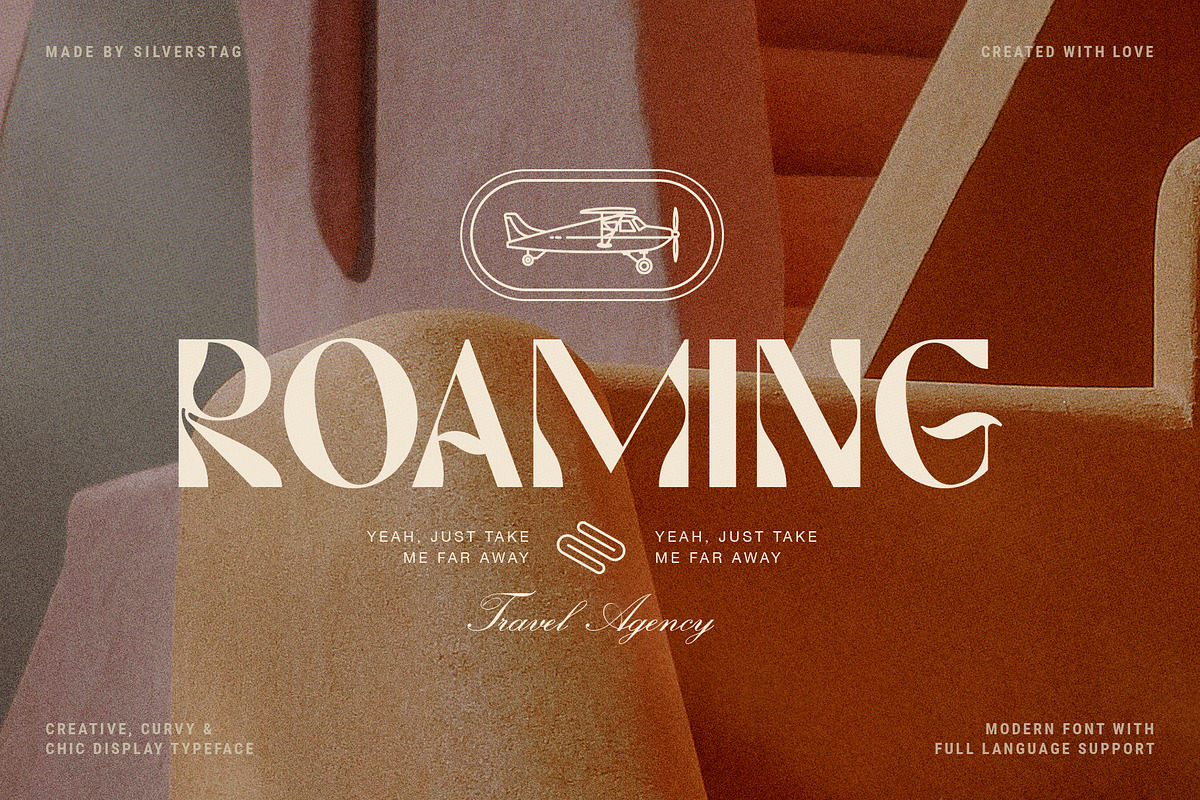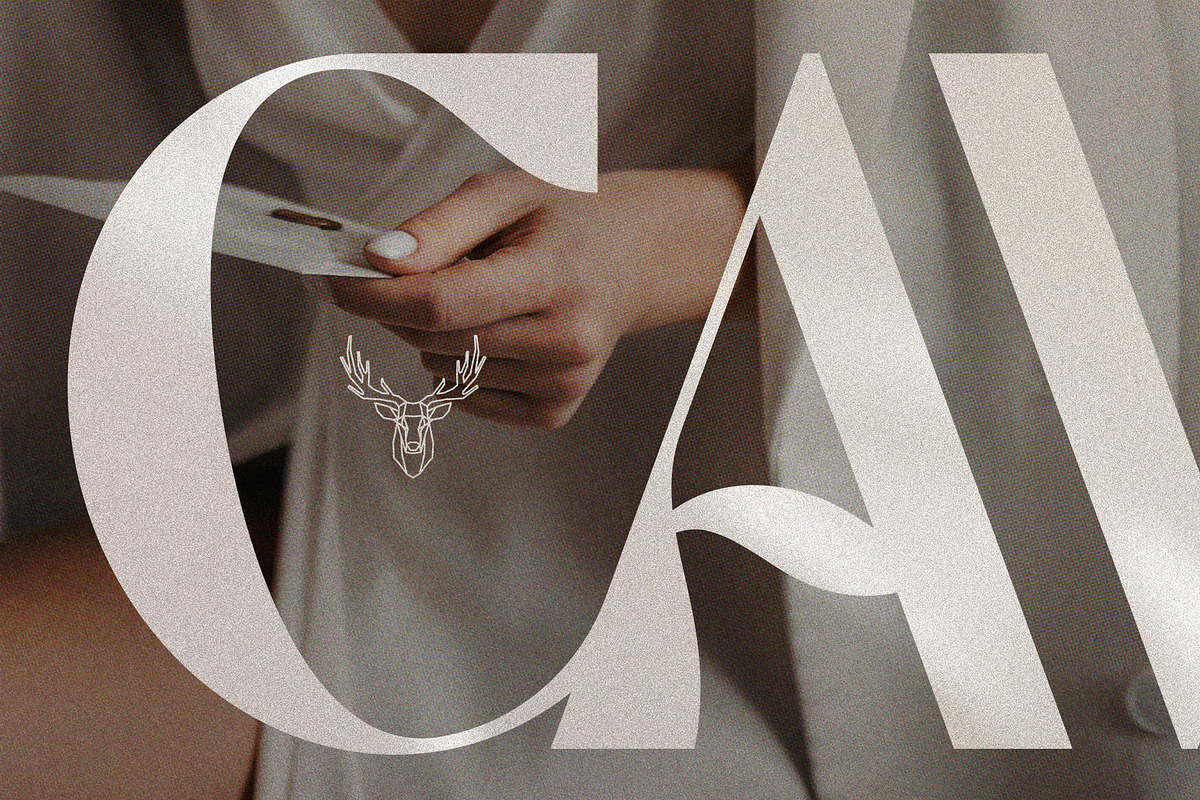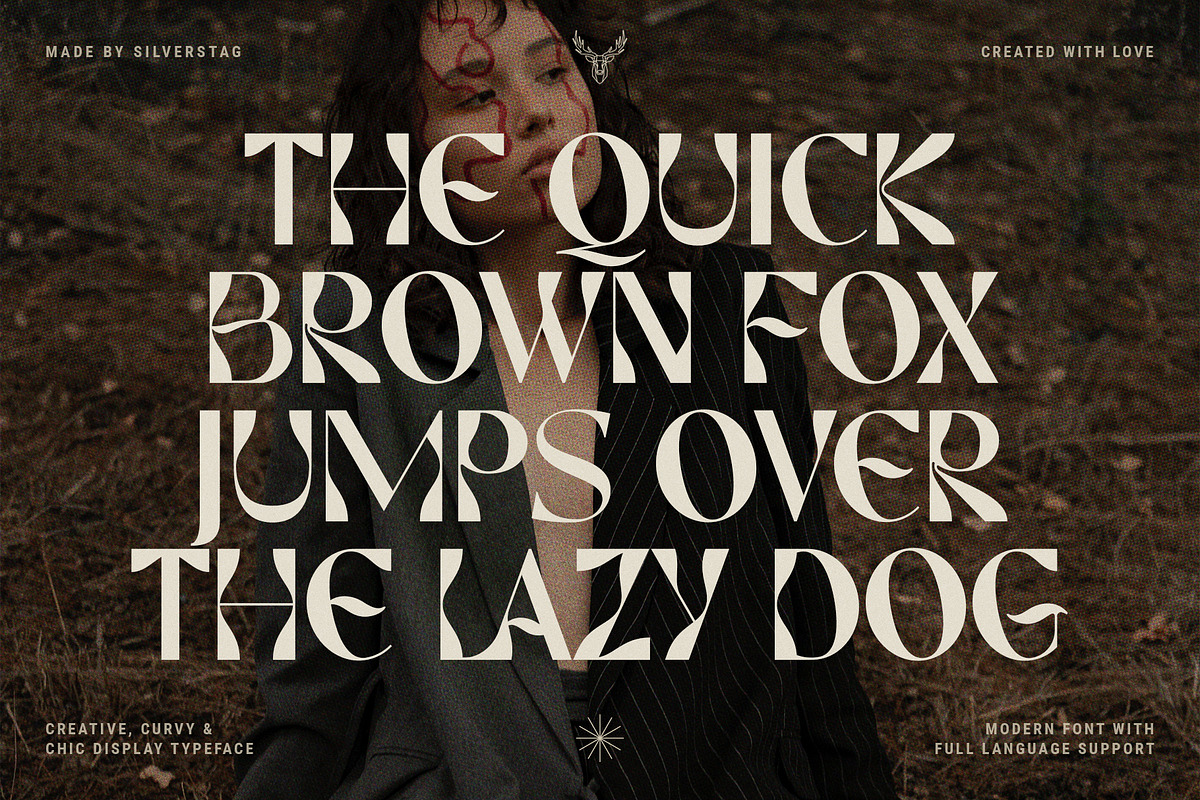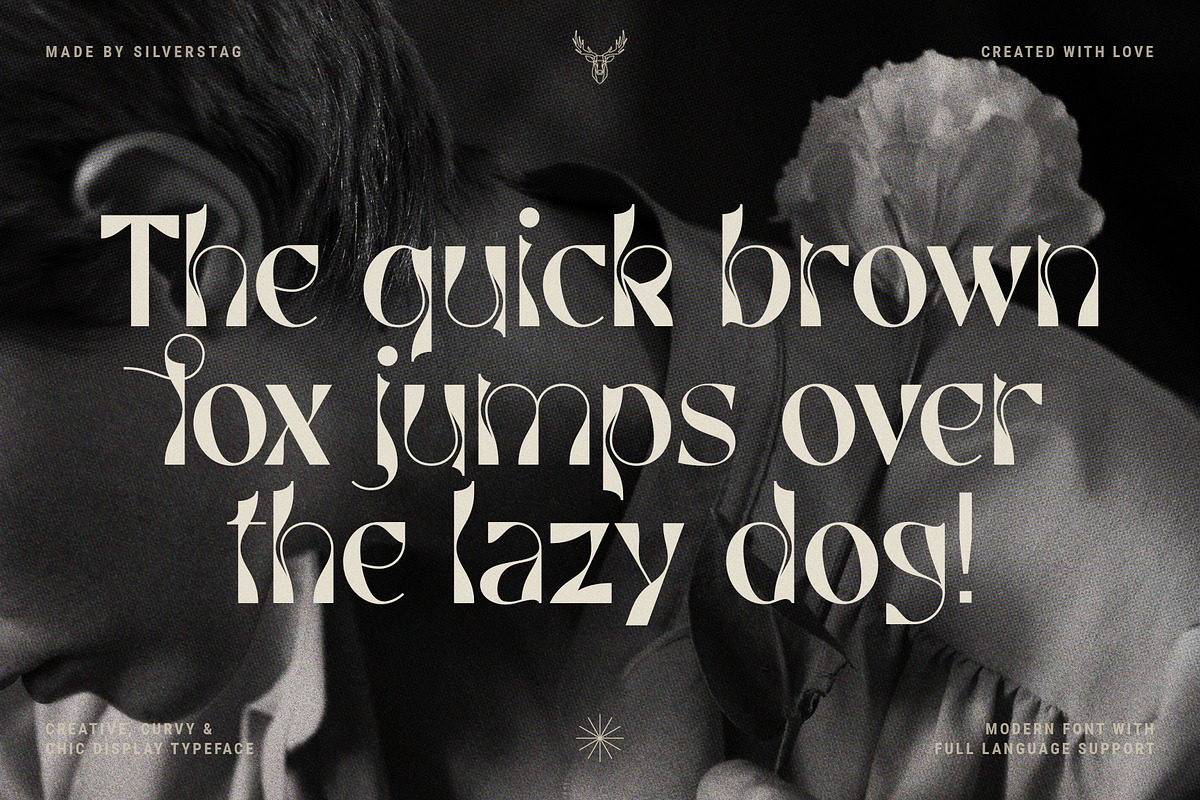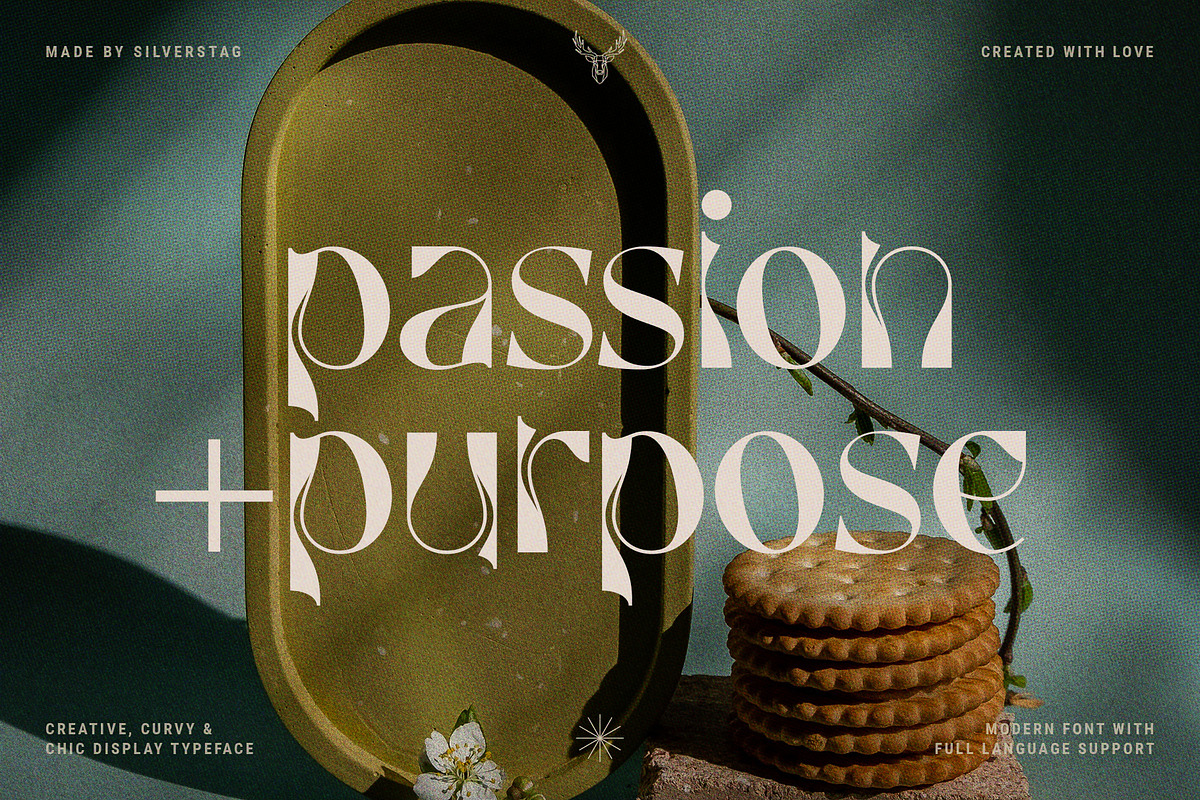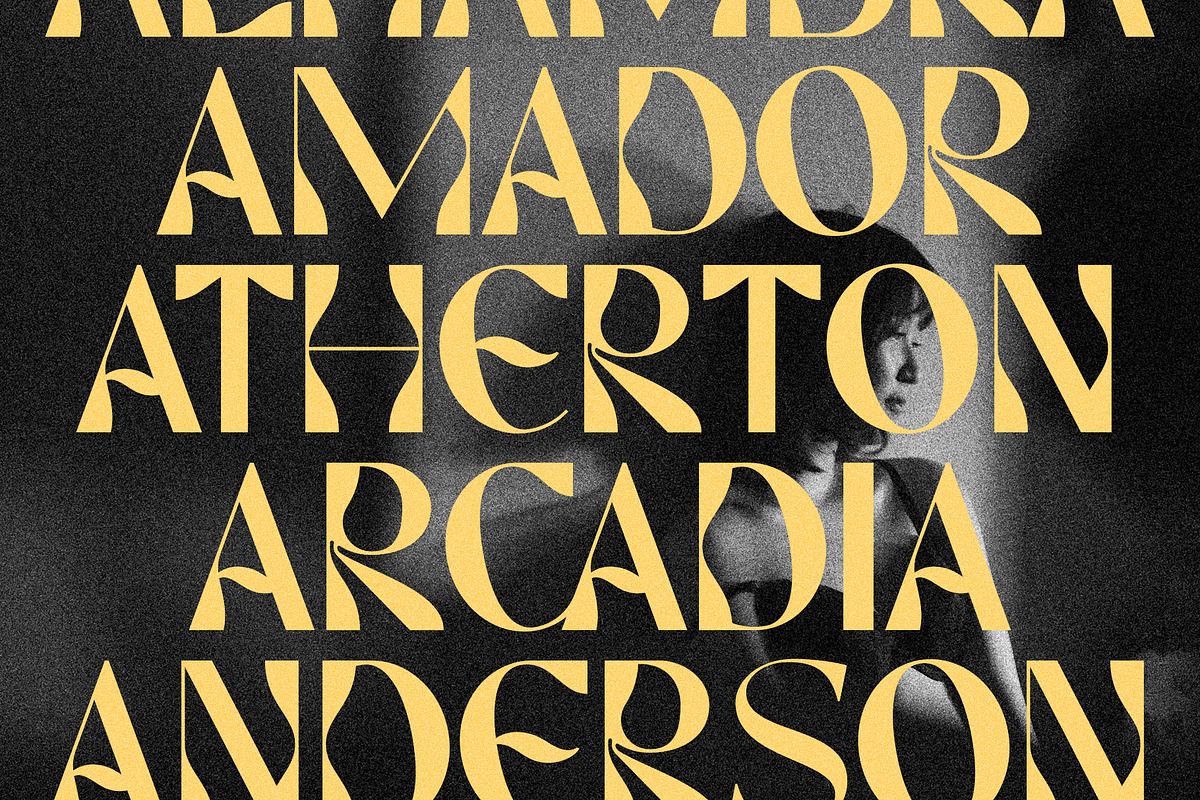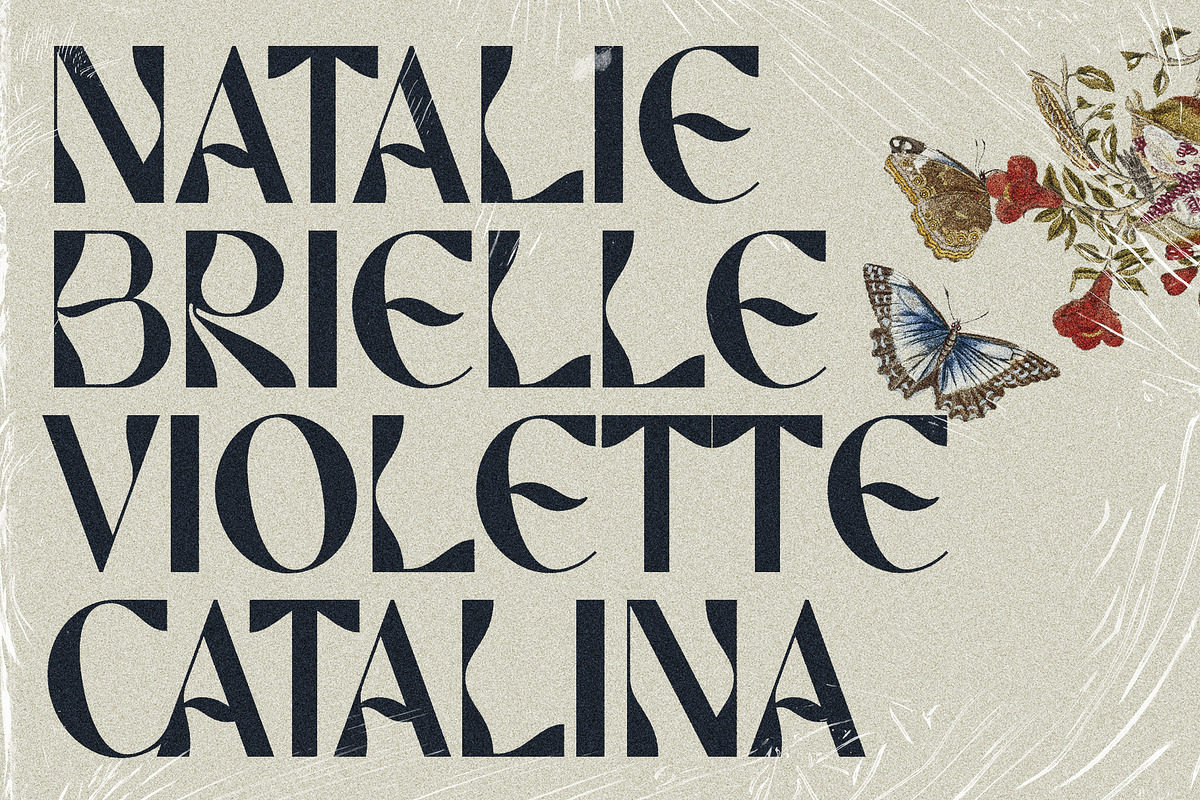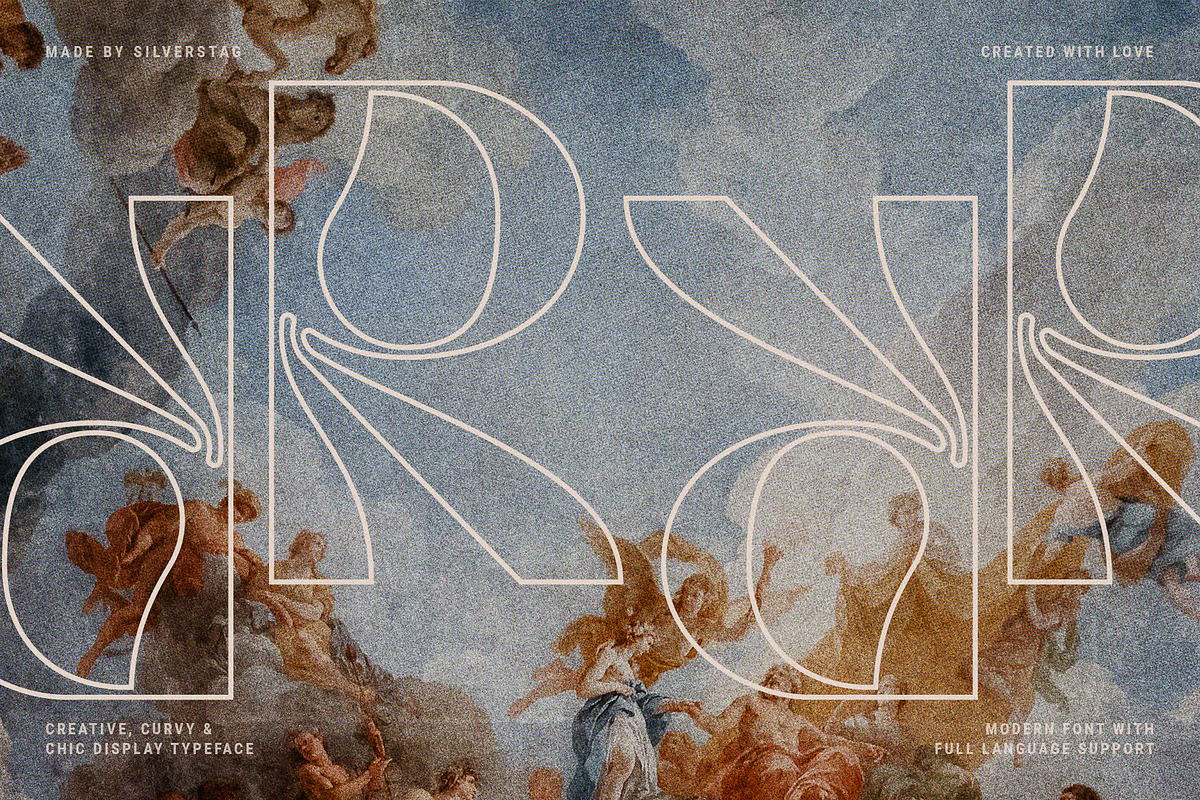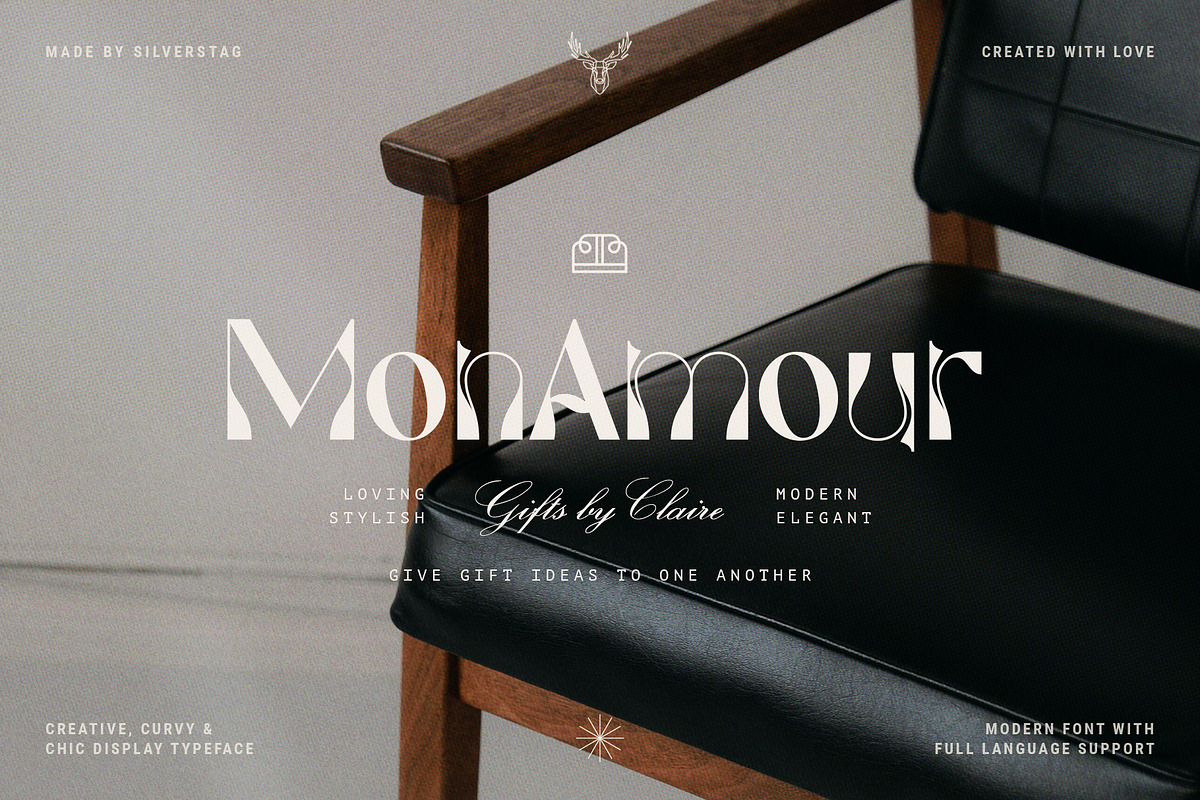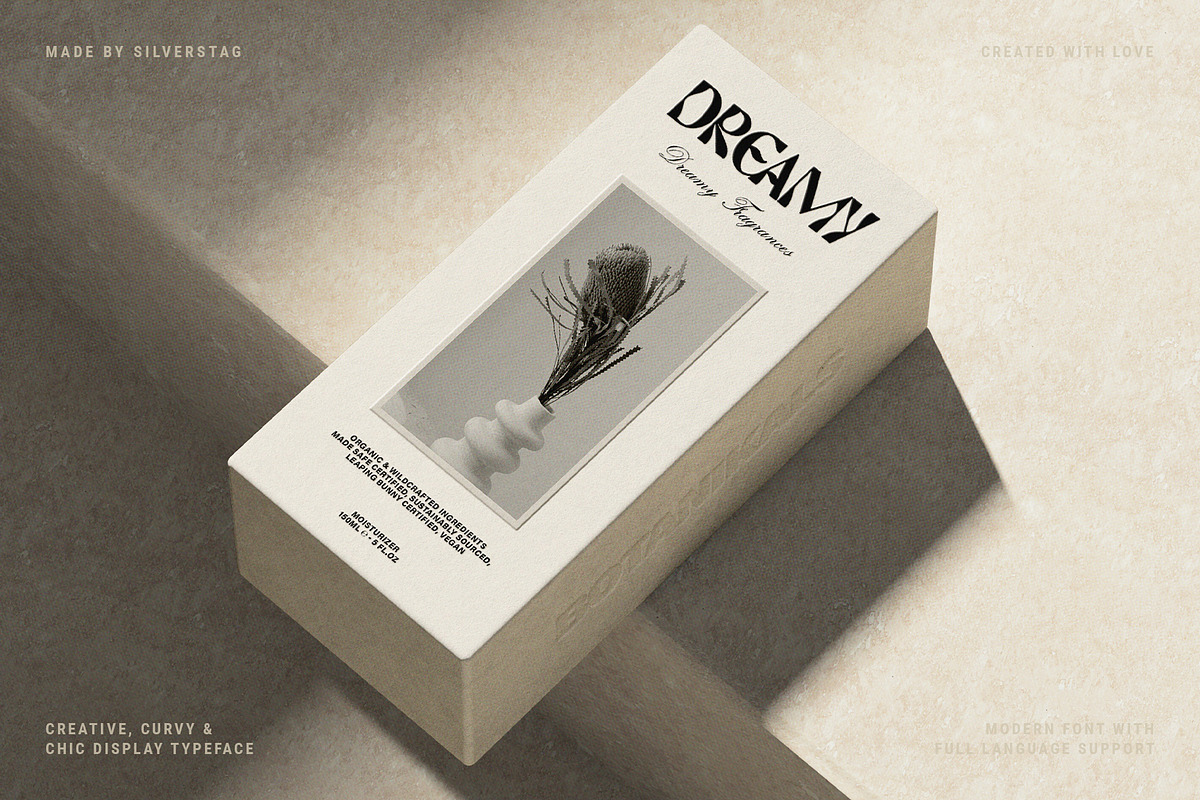
March Evoked - Creative Display Font
March Evoked is a brand new display font pack that includes regular and outlined version. march Evoked is inspired by an early spring in Spain, with flowers in full bloom all over the capital city - Madrid. With contrast lines & curves it will give your design that chic & modern appeal you are looking for. It is perfect for logos, branding, posters, social media & all other creative projects.
It also includes full language support, punctuation, numerals and detailed instructions how to use alternate letters most of the apps on your computer, as well as in Canva.